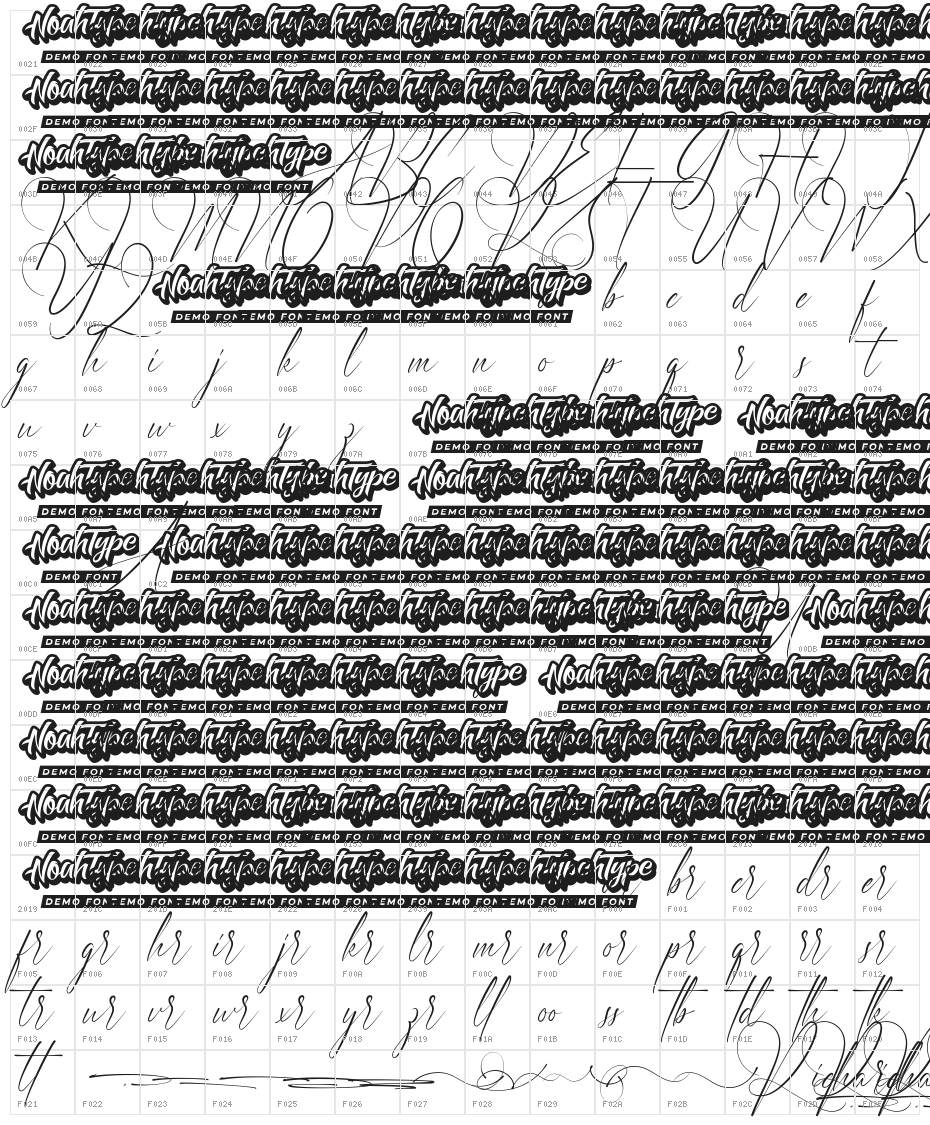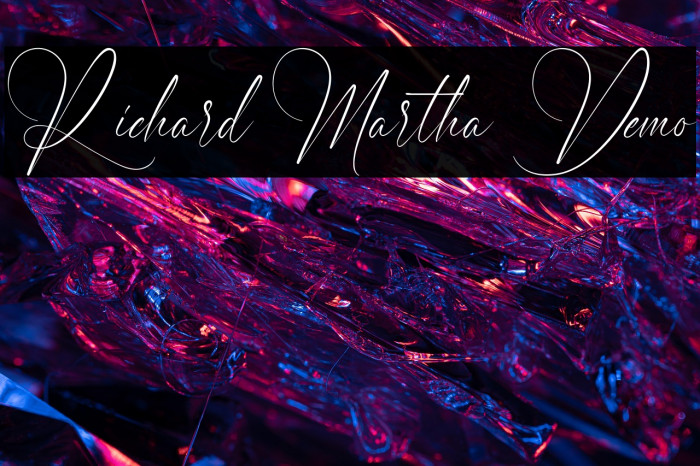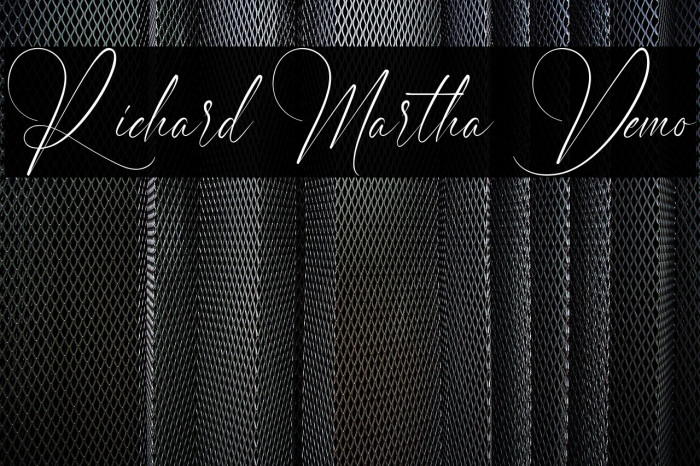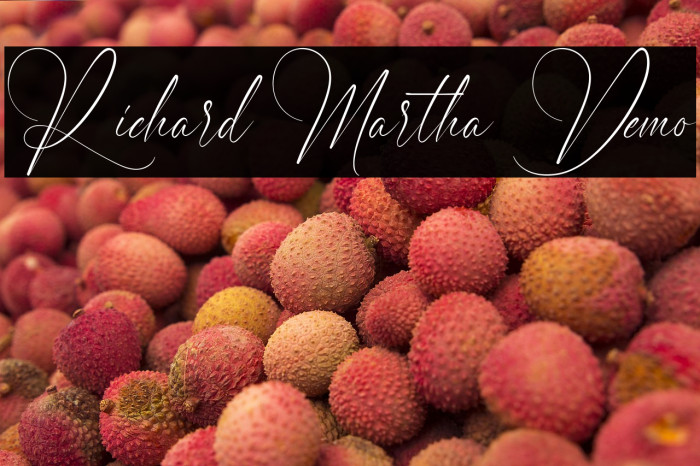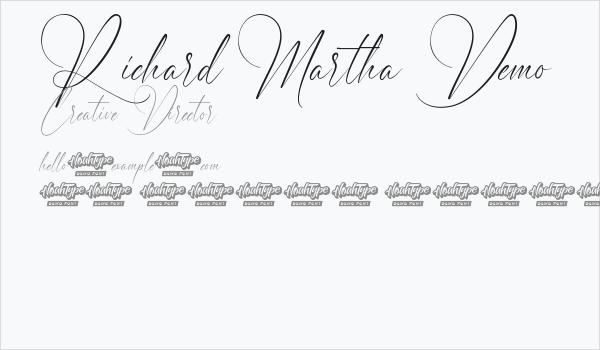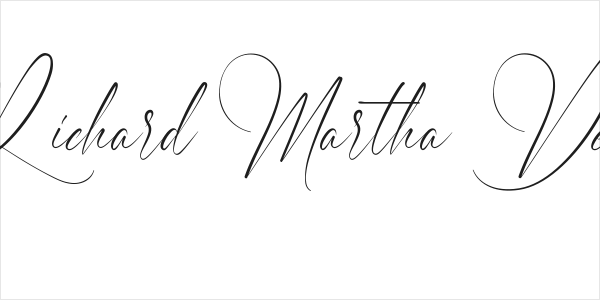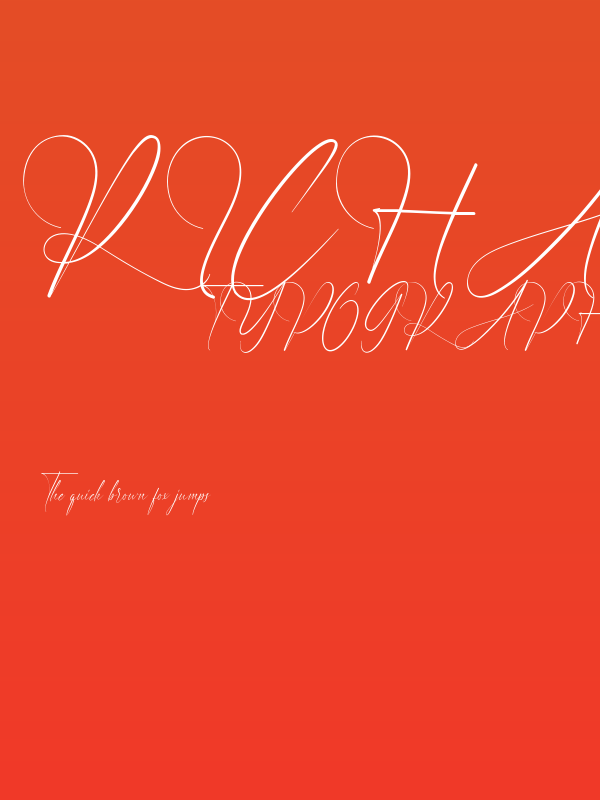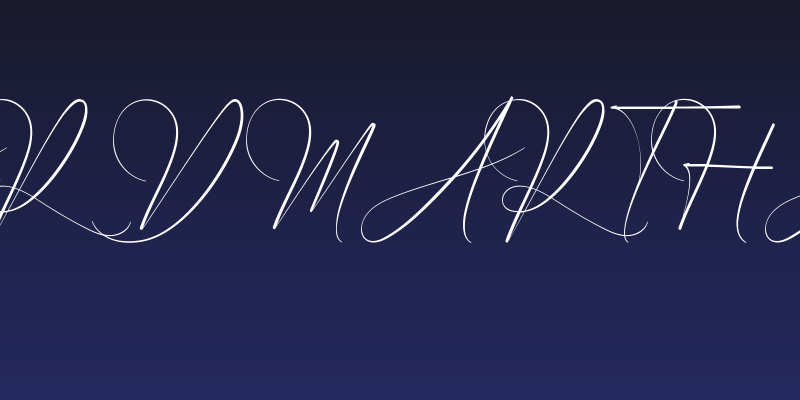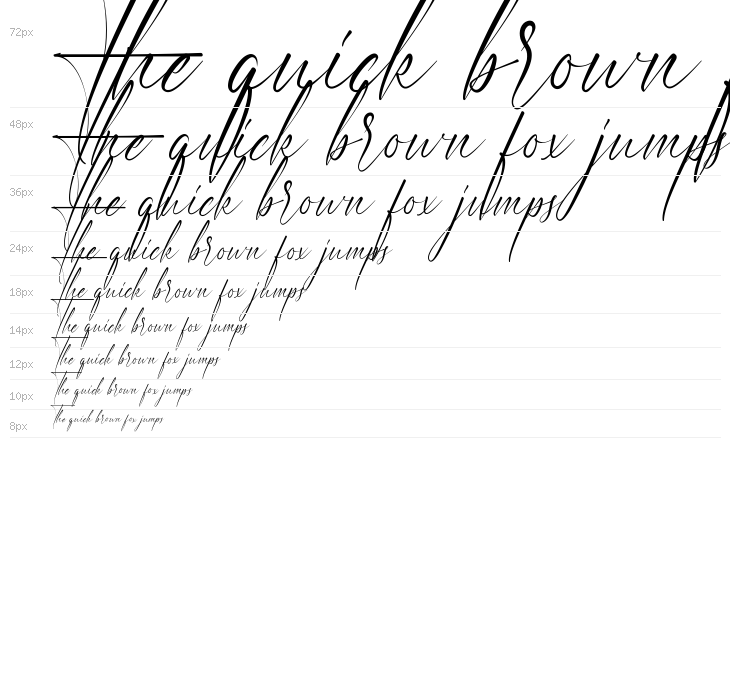
Richard Martha Demo Font
Richard Martha Demo Description
This elegant script font features flowing, interconnected letters that exude a sense of sophistication and grace. The uppercase letters are tall and slender, with delicate loops and swirls that add a touch of flair. The lowercase letters maintain a consistent flow, with smooth curves and a slight slant that enhances readability. The font's thin strokes and high contrast between thick and thin lines give it a refined appearance, making it ideal for formal invitations, elegant branding, and artistic projects. Its overall style is both classic and modern, offering versatility for various design needs.
| Overall Style | Elegant, Classic |
| Use Case | Invitations, Branding, Artistic projects |
| Proposed Projects | Ideal for wedding invitations, elegant branding, artistic projects, and formal stationery. |